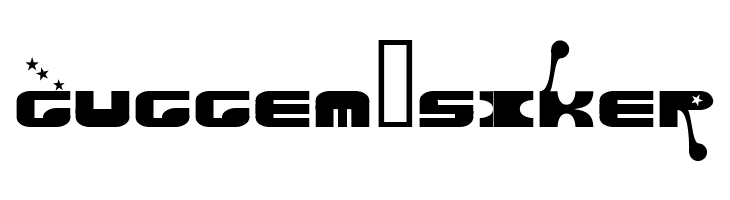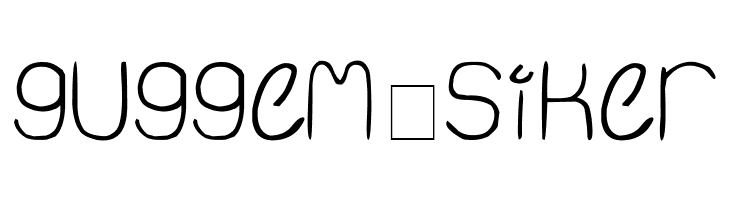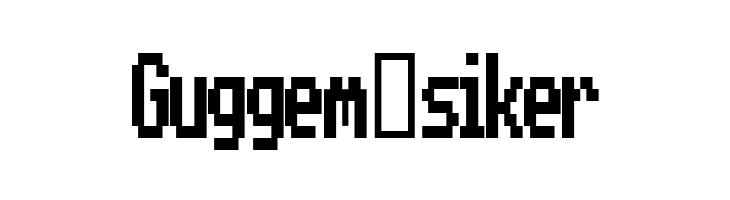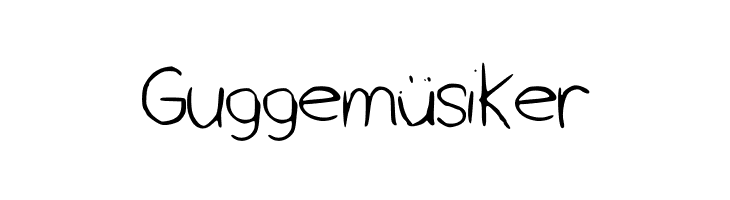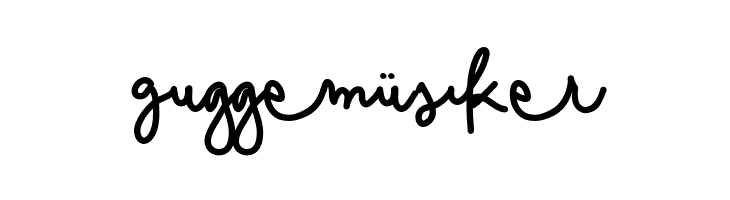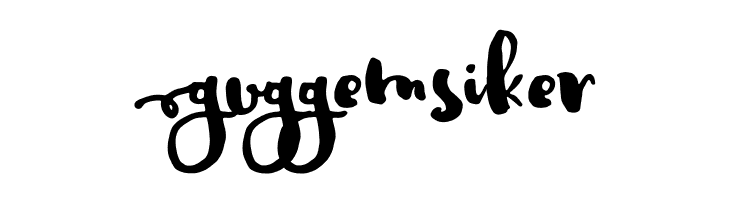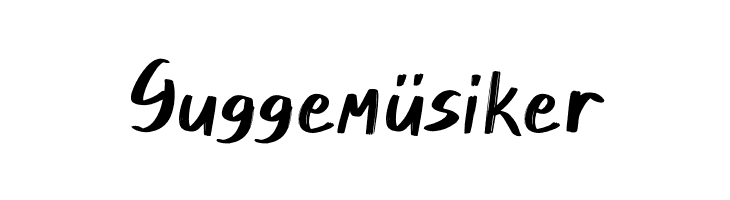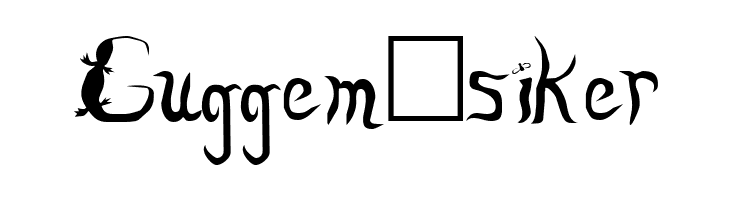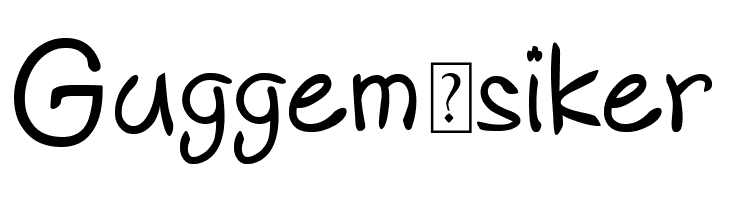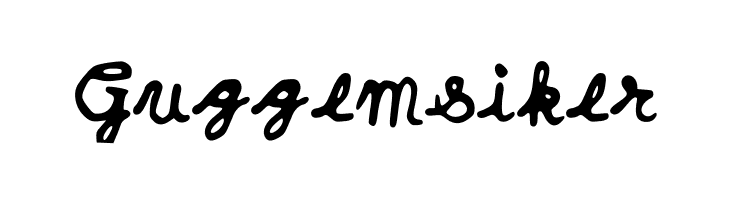
A playful handwritten font with a casual and informal style.
A lively and expressive handwritten font with fluid, connected strokes.
A bold, expressive handwritten font with a playful and artistic style.
A bold, handwritten font with playful, brush-like strokes and a slightly spooky aesthetic.
A decorative font with letters designed to resemble lizards, featuring elaborate and whimsical details.
A playful, hand-drawn font with a whimsical and informal style.
A bold, playful script font with dynamic, flowing letterforms.
A playful, handwritten font with tall, narrow letters and a whimsical style.
A playful, handwritten font with a casual and whimsical style.
A playful, hand-drawn font with irregular strokes and a lively appearance.
A playful, hand-drawn font with a whimsical and lively style.
A bold, artistic font with a hand-drawn, irregular style.
A playful, textured font with a hand-drawn style.
A bold, geometric font with a modern and structured design.
A bold, playful font with rounded, bubbly characters and a whimsical style.
A bold, playful font with rounded edges and a whimsical design.
A playful, cursive font with a whimsical, handwritten style.
A fluid and dynamic handwritten font with a casual and creative style.
A minimalist, tall, and narrow font with clean lines and a modern aesthetic.
A bold, playful font with rounded, thick strokes for a friendly appearance.
A playful and whimsical font with rounded, elongated letterforms.
A playful and elegant script font with a handwritten style.
A playful handwritten font with fluid strokes and a casual vibe.
A bold, dynamic font with exaggerated, swollen strokes and playful, cartoonish shapes.